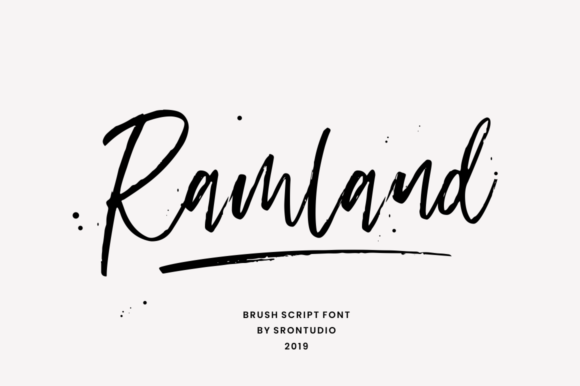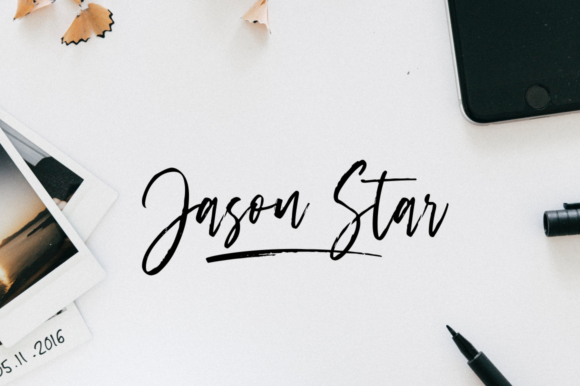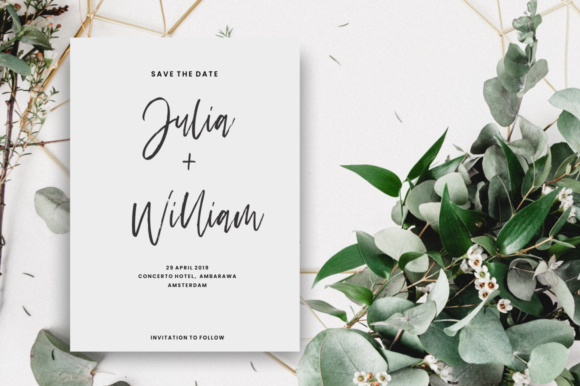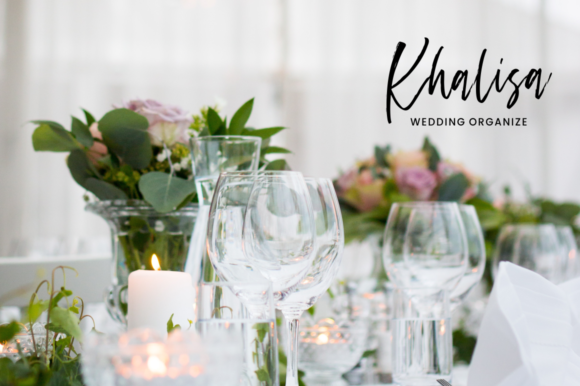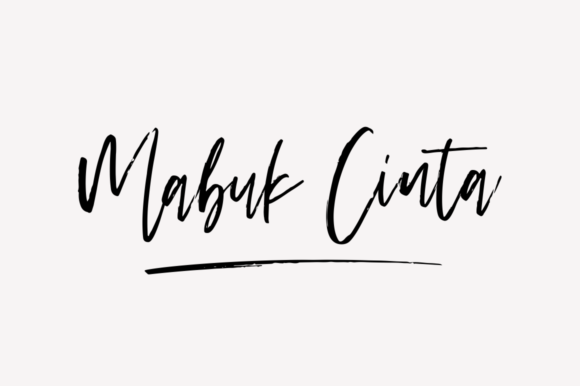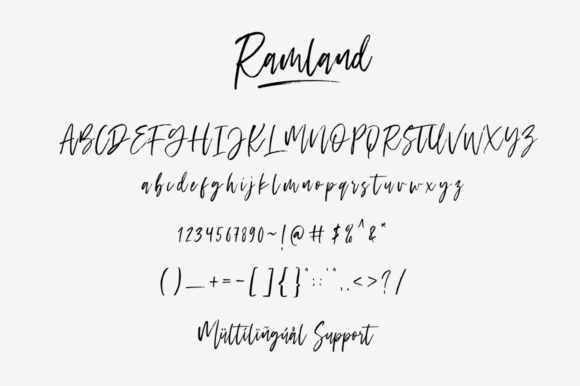
Ramland Font
About Ramland Font
Ramland is a beautiful and charming script with an organic feel. It will effortlessly add an authentic twist to any design project.